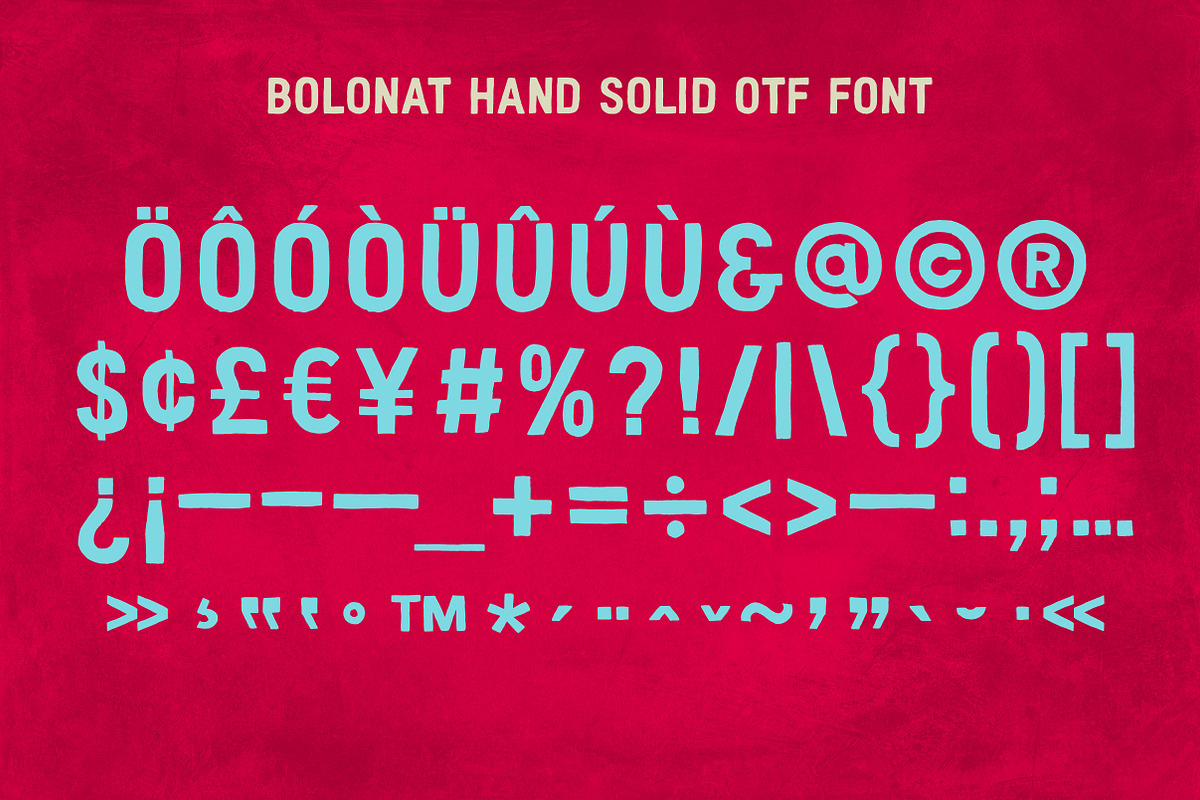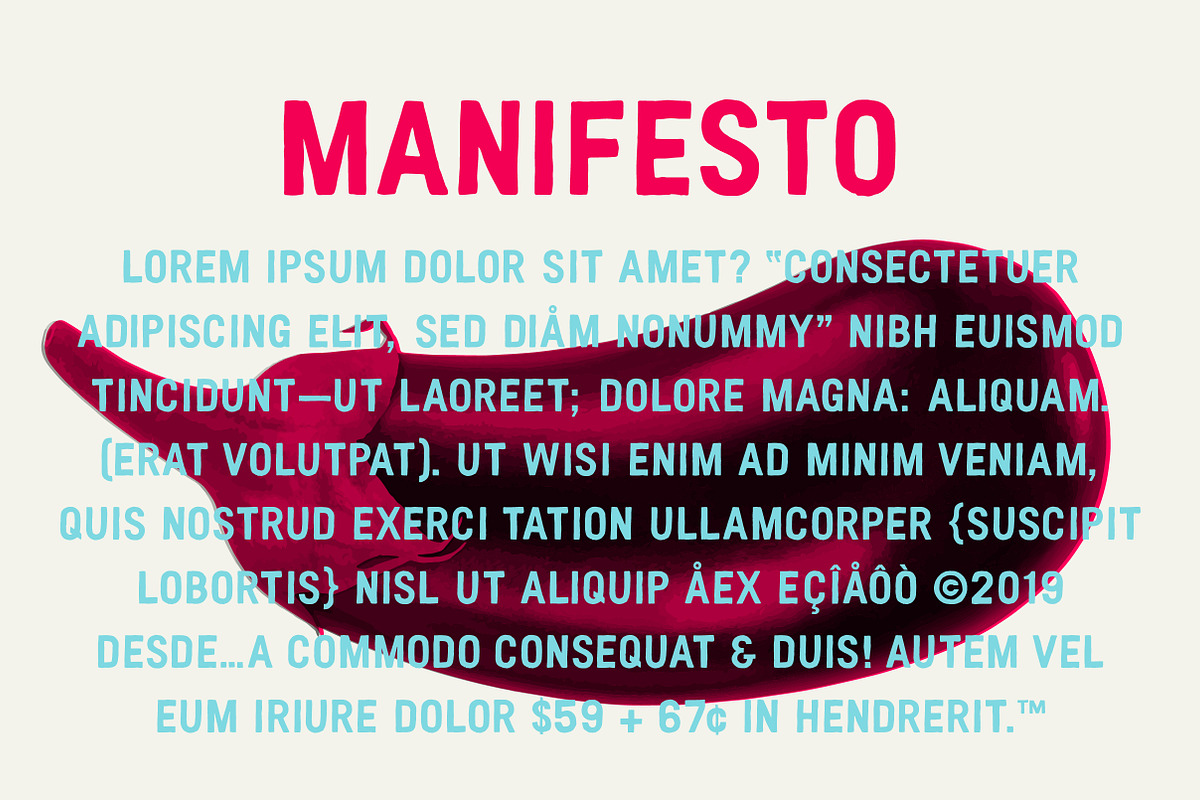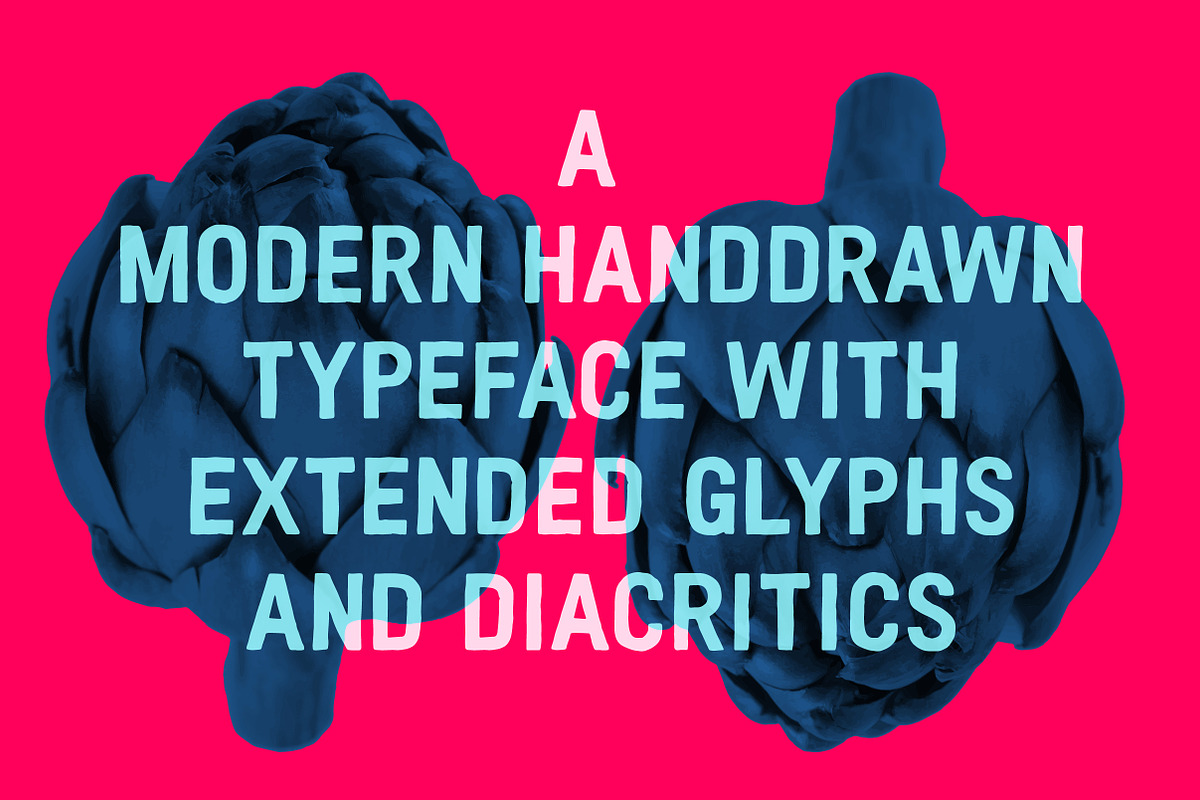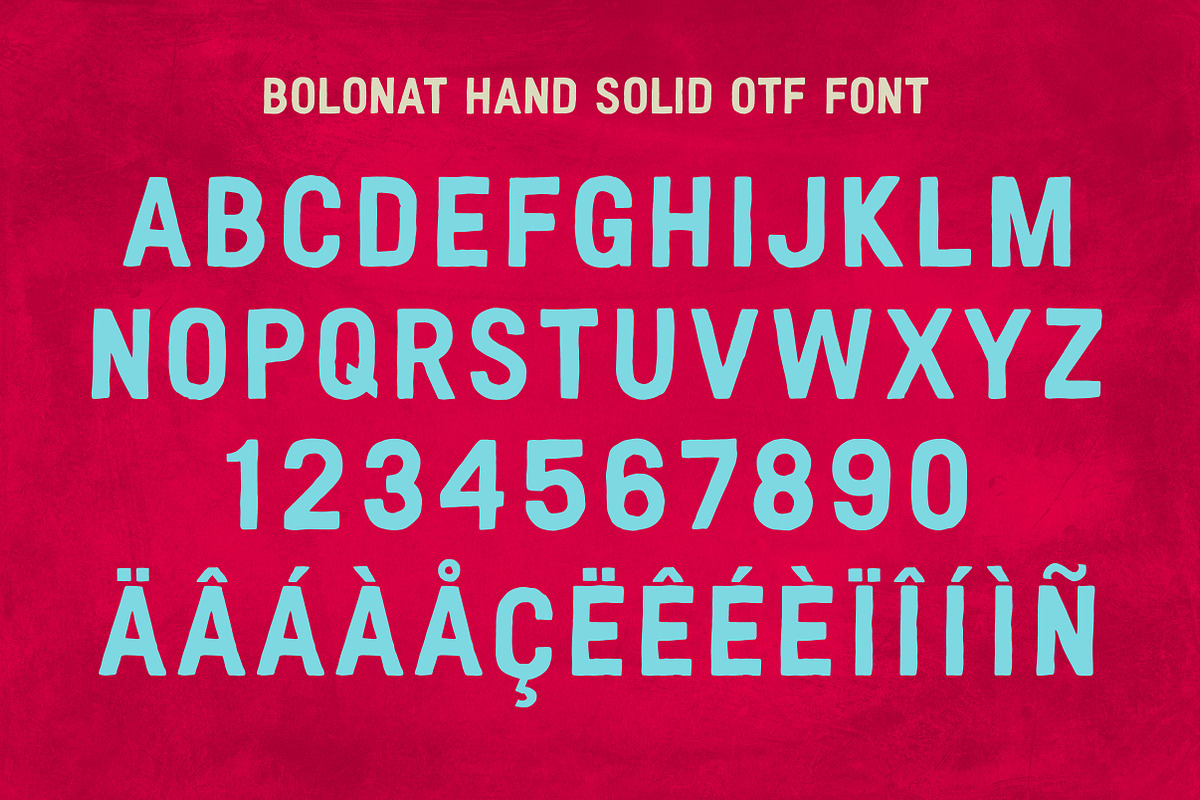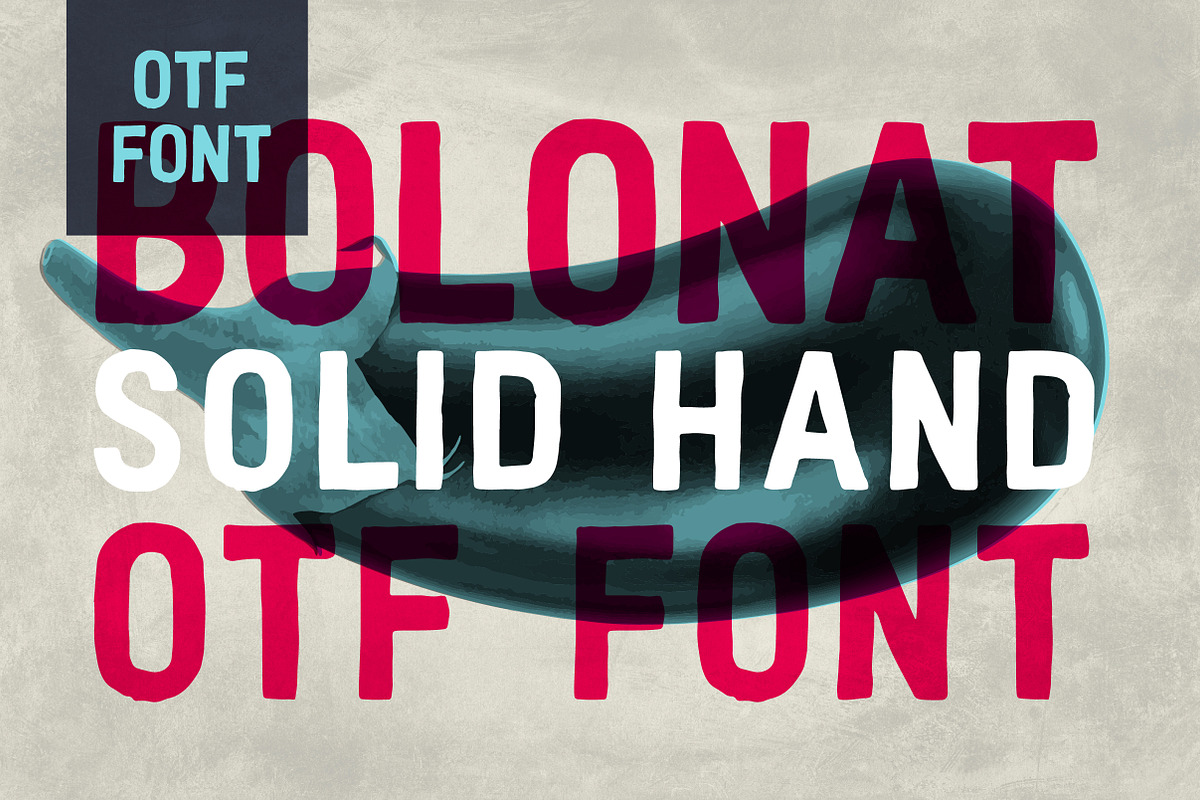
Bolonat Solid Hand OTF Font
Bolonat Solid Hand OTF Font by Lee Iley is a font selected for branding, posters, packaging, typography.
- Contains an extensive Diacritic Glyph palette and Punctuation marks.
- Pre-kerned and spaced, each glyph is user ready with a few characters needing kerning depending on end user preference.
- THE BOLONAT FAMILY: HAND - A solid version of the original watercolor glyphs with Extended Diacritics and Punctuation.
Bolonat Solid Hand OTF Font by Lee Iley fits naturally into Branding, posters, packaging, typography.